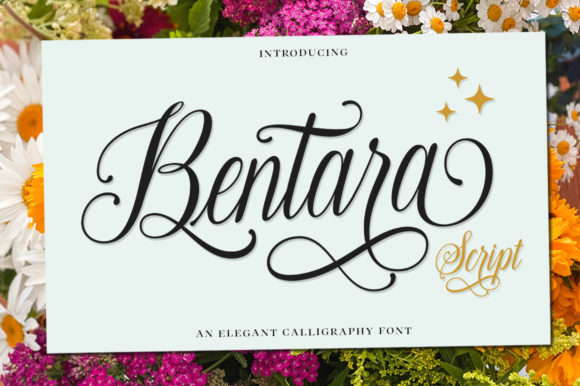
About Bentara Script Font
Bentara Script is a stylish and refined script font. It has a classy, elegant and modern look that can be used for logos, branding, invitations, stationery, wedding designs, social media posts, and much more! Bentara Script is PUA encoded which means you can access all glyphs and swashes with ease!